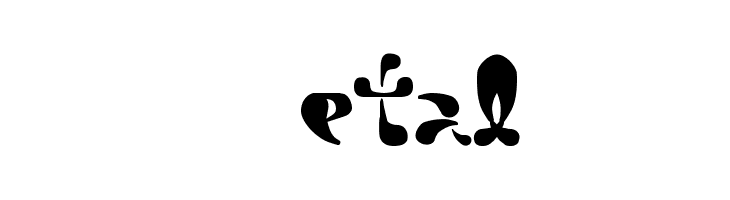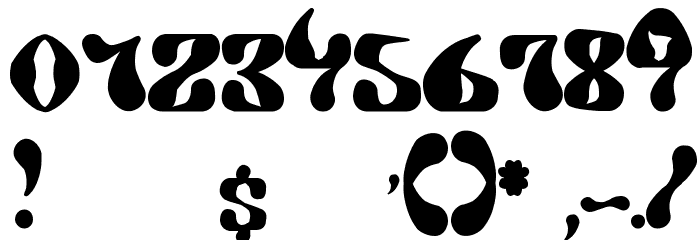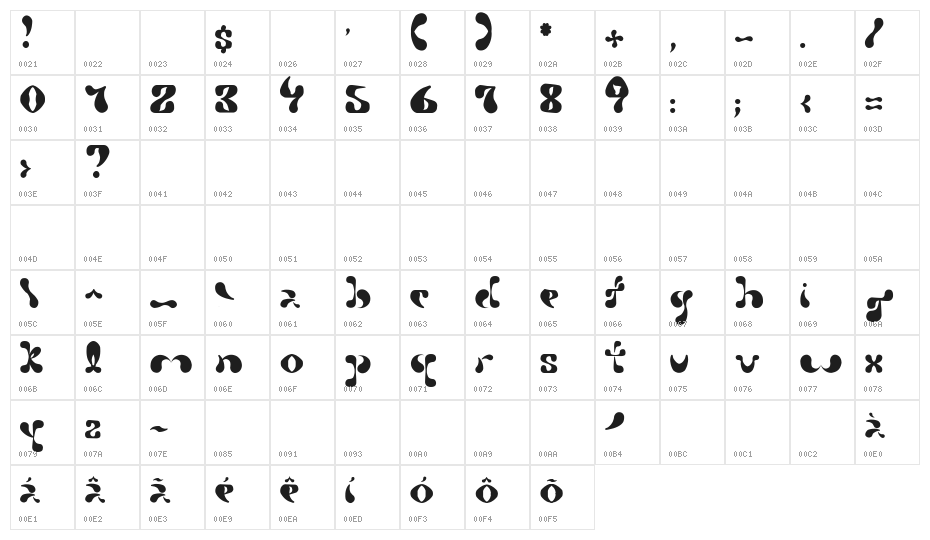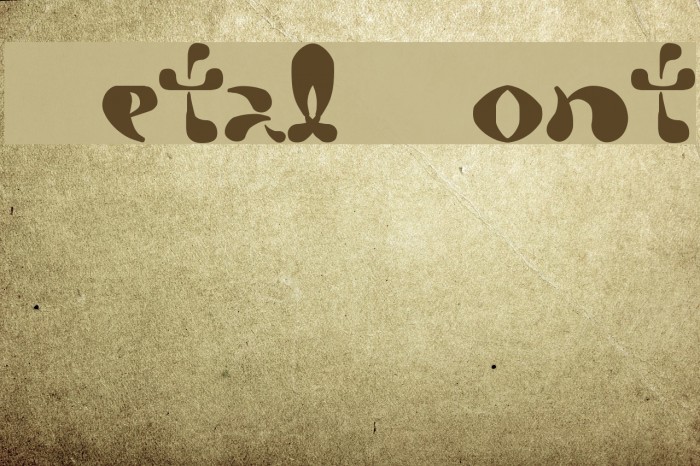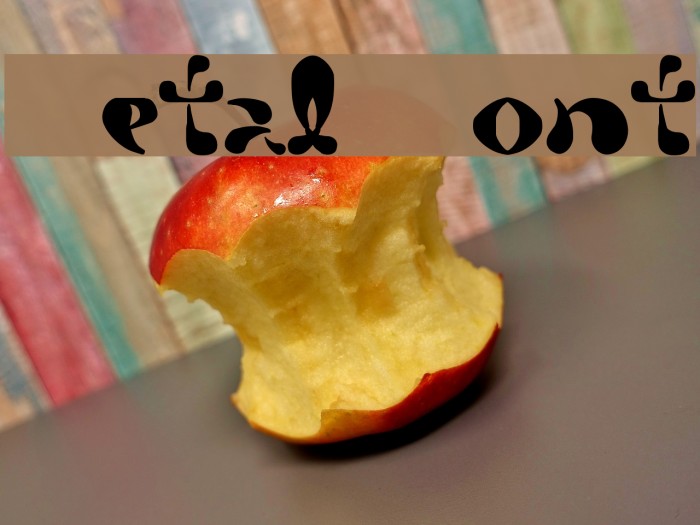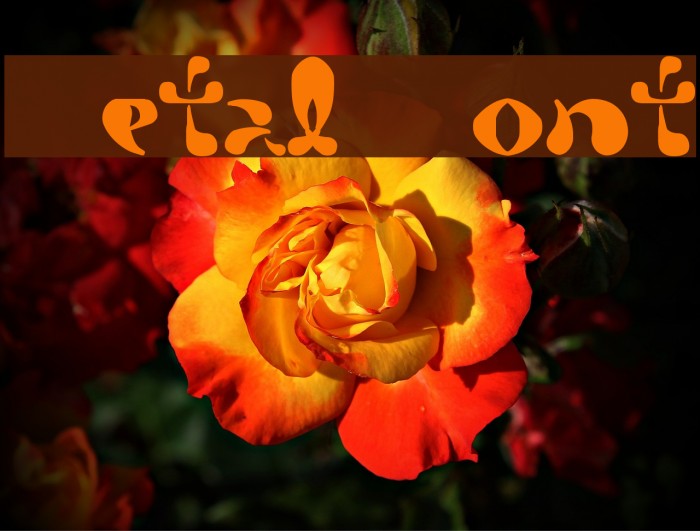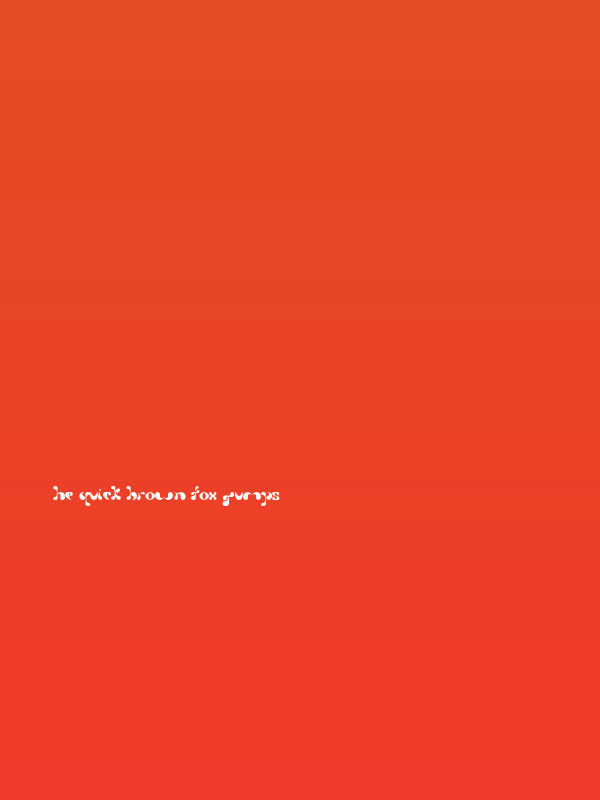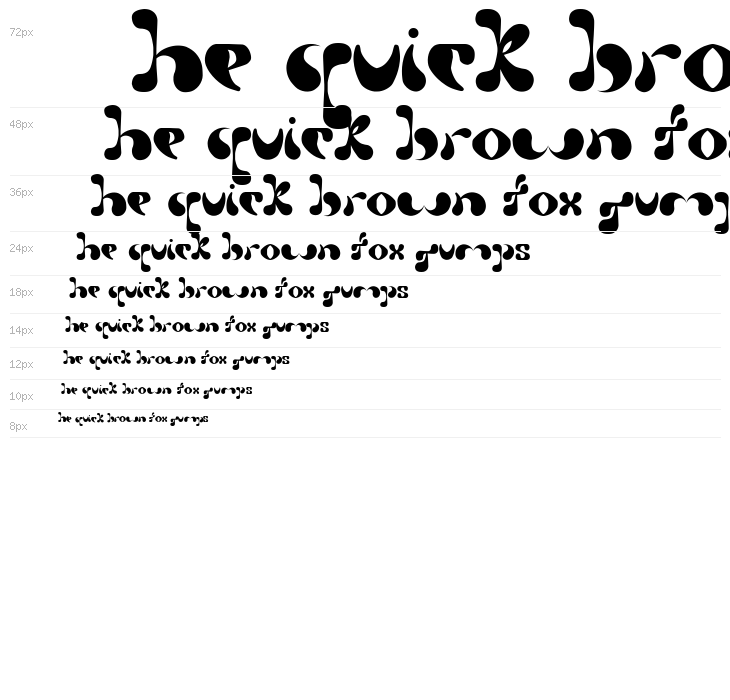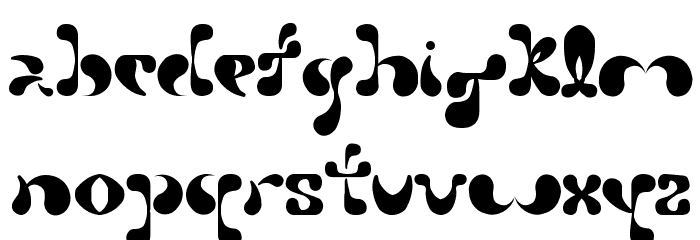
Petal Font
Petal Description
This font features a highly decorative and artistic style with bold, fluid strokes that create a sense of movement and whimsy. The characters are uniquely shaped with a playful, almost organic feel, reminiscent of petals or flowing ink. The design is characterized by its thick, rounded forms and high contrast between the thick and thin areas of each letter. This font is visually striking and commands attention, making it ideal for creative and expressive projects.
| Use Case | Headlines, Logos, Artistic projects |
| Proposed Projects | Ideal for artistic posters, creative branding, unique invitations, and expressive headlines. |